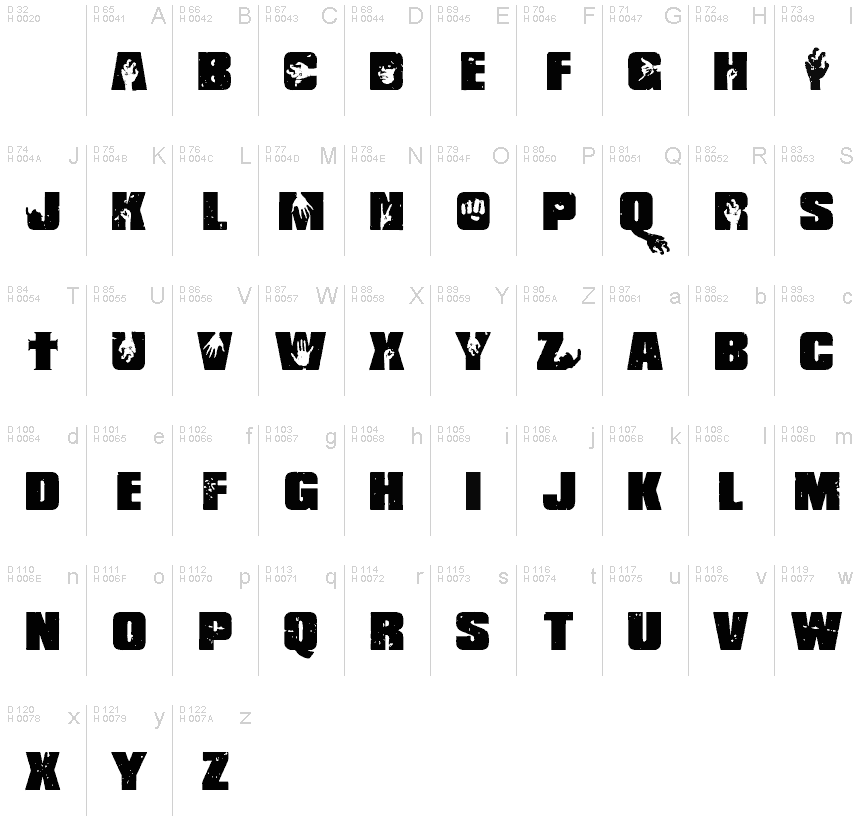
Shaun of the Dead
Shaun of the Dead, meticulously crafted by Jens R. Ziehn, stands out as a display font that embodies a thrilling combination of horror and boldness. Its extra-bold weight and expanded width command attention, making it an imposing presence on any canvas. The font's scary style is characterized by jagged edges and irregular letterforms that evoke a sense of imminent danger and unease—perfect for projects aiming to convey intensity or suspense.
The aesthetic appeal of Shaun of the Dead lies in its ability to balance the grotesque with readability, ensuring that while your audience feels the chill down their spine, the message remains clear and impactful. With its expanded characters, this typeface fills spaces with confidence, making it ideal for titles in horror movie posters, Halloween event promotions, game interfaces or any setting where a touch of terror is desired.
Shaun of the Dead is more than just a typeface—it's an expressive tool for designers looking to inject their projects with an aura of mystery and excitement without sacrificing legibility. Whether used sparingly for dramatic effect or as the focal point in design work, this font has immense potential to elevate creative endeavors into unforgettable experiences.
The aesthetic appeal of Shaun of the Dead lies in its ability to balance the grotesque with readability, ensuring that while your audience feels the chill down their spine, the message remains clear and impactful. With its expanded characters, this typeface fills spaces with confidence, making it ideal for titles in horror movie posters, Halloween event promotions, game interfaces or any setting where a touch of terror is desired.
Shaun of the Dead is more than just a typeface—it's an expressive tool for designers looking to inject their projects with an aura of mystery and excitement without sacrificing legibility. Whether used sparingly for dramatic effect or as the focal point in design work, this font has immense potential to elevate creative endeavors into unforgettable experiences.
by Jens R. Ziehn